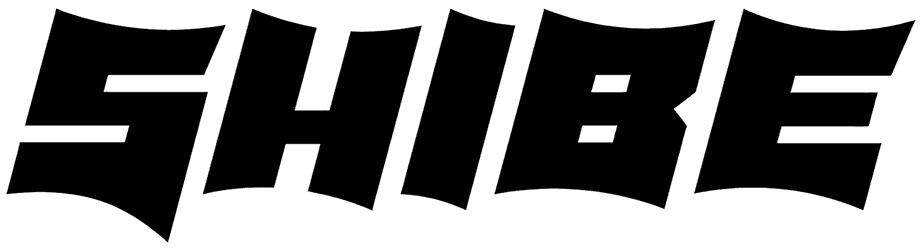
Shibe Font
Designed byLinecreative
Shibe is an all-caps font that all of its characters come with a captivating angular style and immediately grab the attention of the audience.
Since its letters are boldly designed, this ninja font can be utilized in a huge set of graphic content, including posters, applications, covers, packaging, or stationery. Needless to say that this masterpiece carries a sense of dynamic, jauntiness, vivacity, or vitality.